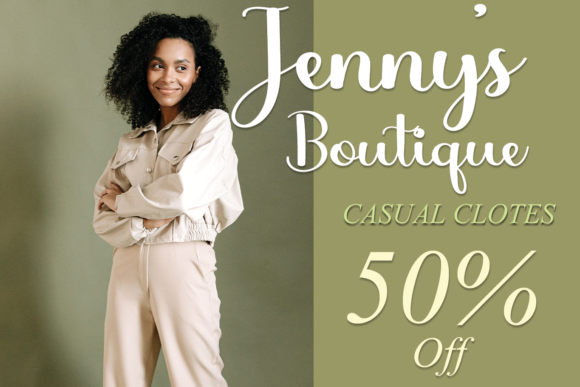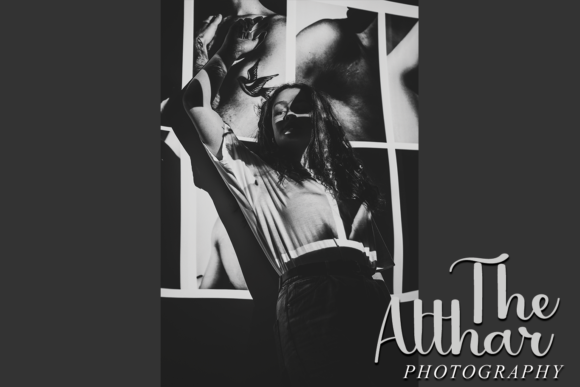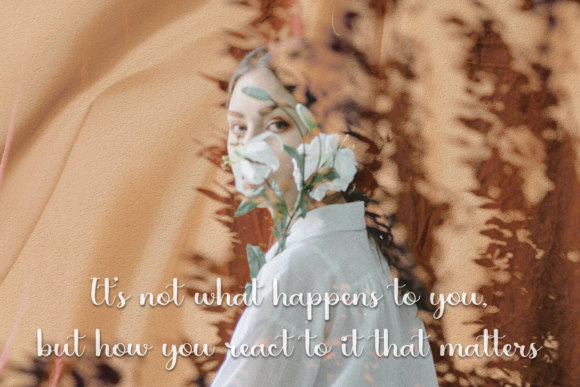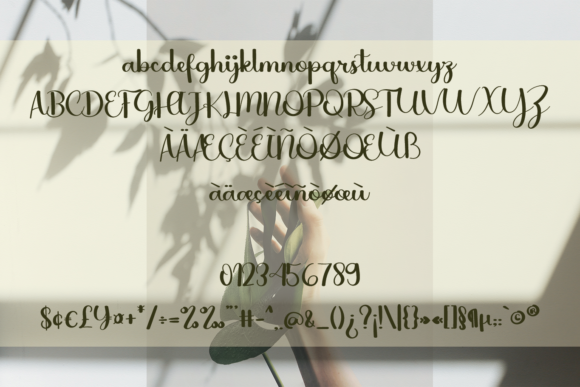
Introducing Christmas Vintage Font: A Timeless Elegance for Your Holiday Designs
As the holiday season approaches, designers and crafters are on the lookout for the perfect typography to add a touch of magic to their creations. If you’re seeking a font that embodies the essence of Christmas with a dash of vintage charm, look no further than the Christmas Vintage Font. This lovely and delicate script font is specifically designed to bring an air of elegance and class to your holiday designs, making it an ideal choice for a wide range of projects.
The Charm of Christmas Vintage Font
Christmas Vintage Font is a meticulously crafted typeface that captures the nostalgic feel of traditional holiday scripts, while also infusing them with a modern touch of sophistication. Its elegant strokes and refined letterforms make it perfect for creating eye-catching titles, headings, and decorative texts for Christmas-themed projects. Whether you’re working on invitations, greeting cards, posters, or digital content, this font is sure to add a festive and upscale look to your designs.
Key Features of Christmas Vintage Font
- Elegant Script Style: Christmas Vintage boasts a beautiful script style that adds a touch of luxury and refinement to any design.
- Vintage Appeal: The font’s classic and timeless look makes it perfect for creating holiday content that feels both nostalgic and sophisticated.
- High Versatility: Suitable for a variety of projects, including invitations, greeting cards, posters, banners, and digital content.
- Scalable: The font maintains its quality and elegance at various sizes, ensuring it looks great on both print and digital platforms.
How to Use Christmas Vintage Font in Your Designs
Incorporating Christmas Vintage Font into your holiday projects is simple and straightforward. Here are a few ideas to get you started:
- Holiday Invitations: Create stunning Christmas invitations that set the tone for your festive gatherings.
- Christmas Cards: Design beautiful and heartfelt greeting cards that stand out with the elegant touch of Christmas Vintage Font.
- Festive Posters: Craft eye-catching posters for holiday promotions, events, or decorations that capture the essence of the season.
- Digital Content: Enhance your holiday-themed blog posts, social media graphics, and email newsletters with a touch of vintage elegance.
Tips for Maximizing the Impact of Christmas Vintage Font
To make the most out of Christmas Vintage Font, consider the following tips:
- Pair with Complementary Fonts: Combine Christmas Vintage Font with simple, sans-serif fonts for contrast and visual interest.
- Adjust Size and Color: Experiment with different sizes and colors to highlight key information and add depth to your designs.
- Incorporate Holiday Elements: Enhance your designs with festive elements like holly, snowflakes, or ornaments to complement the vintage feel of the font.
Christmas Vintage Font is a beautiful and versatile typeface that can elevate your holiday designs with its elegant and vintage charm. Whether you’re a designer looking for the perfect typography for your client’s holiday campaign or a crafter seeking to add a personal touch to your handmade cards and decorations, this font is sure to meet your needs. With its ease of use, high versatility, and timeless appeal, Christmas Vintage Font is an excellent addition to your font collection, ready to bring a touch of class and sophistication to your holiday creations.